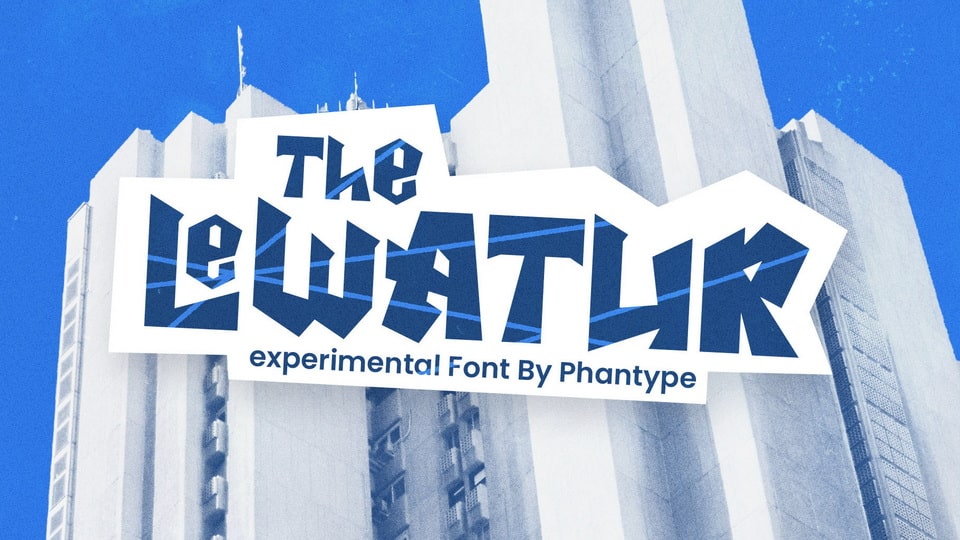
Download The Lewatur font, a striking brutalism-inspired display typeface with sharp and chunky forms. The Lewatur font is created for titles, poster design, web design, branding and packaging works, illustrations, badges and other typography artworks.
Designer: Phantasia Type